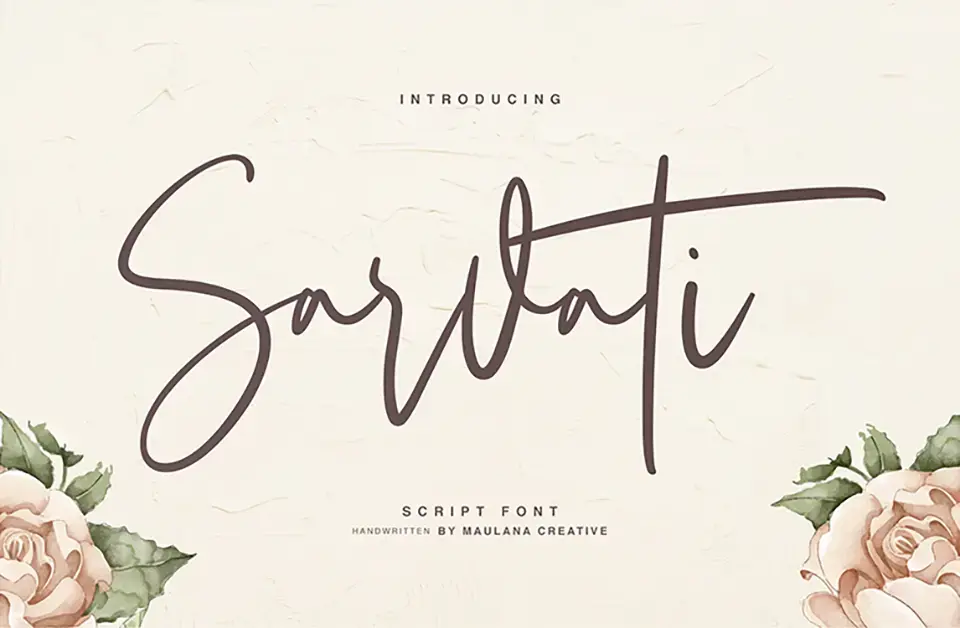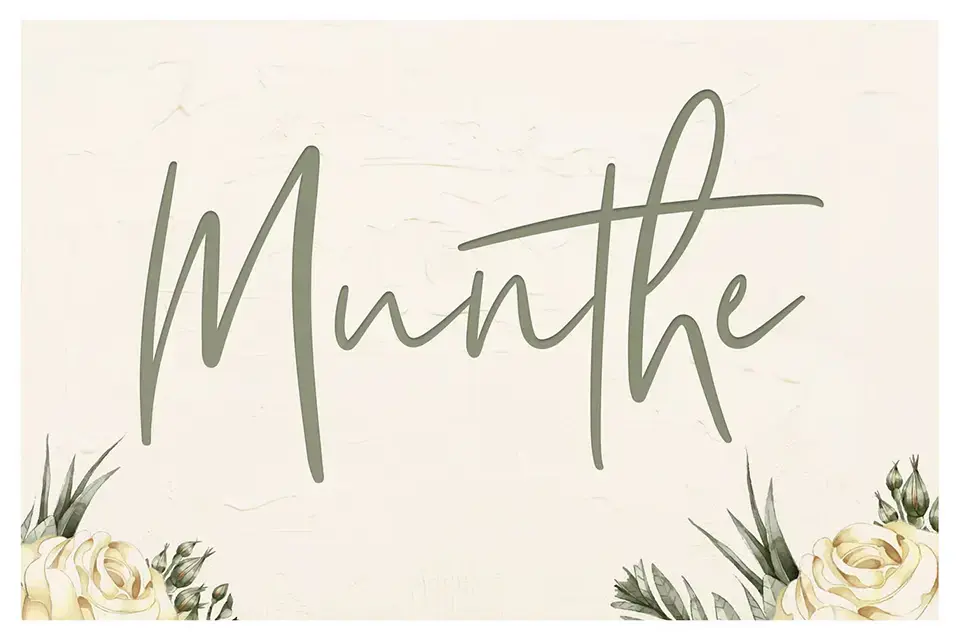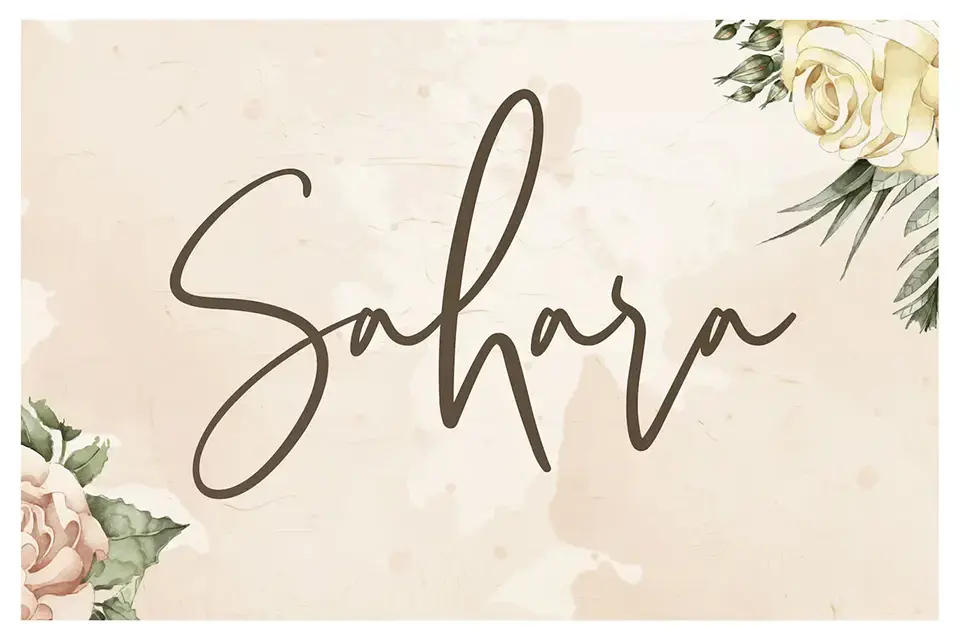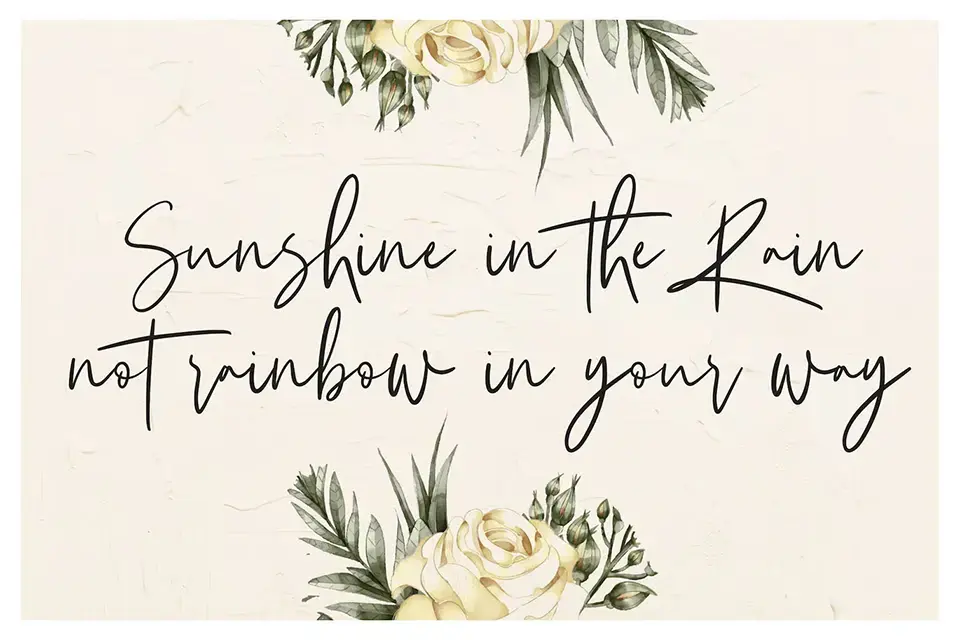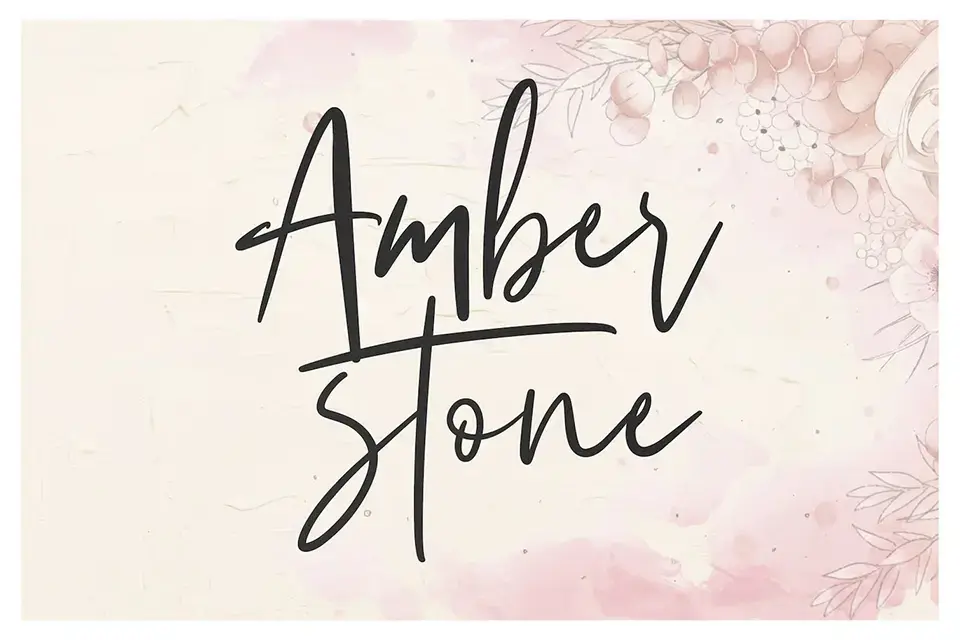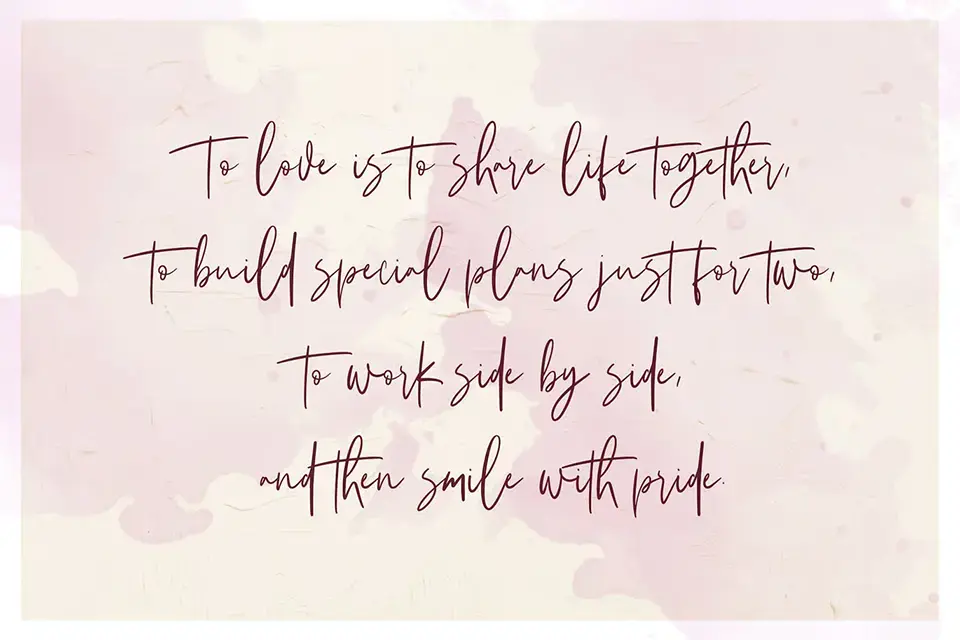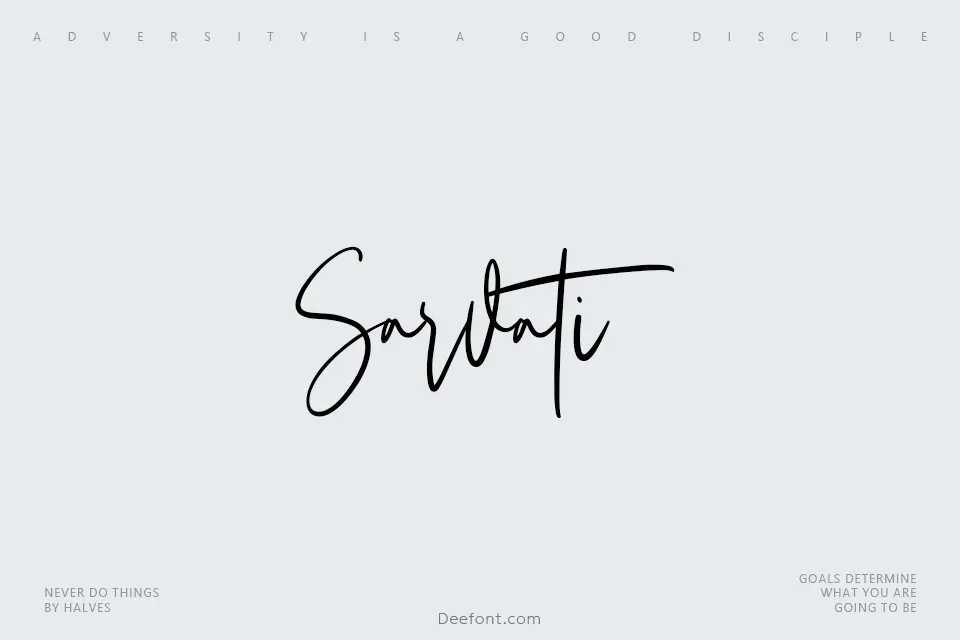
Sarvati Font
Sarvati is an elegant handwritten calligraphy script font featuring smooth curves and natural flowing strokes that exude warmth and friendliness. Designed with modern calligraphic aesthetics, this typeface brings an authentic handcrafted feel to your designs. Ideal for signature applications, stationery, logos, typography quotes, magazine covers, website headers, and branding projects. The font's graceful letterforms and organic rhythm make it perfect for invitations, packaging design, and any project requiring a personal, artisanal touch that captures contemporary elegance.